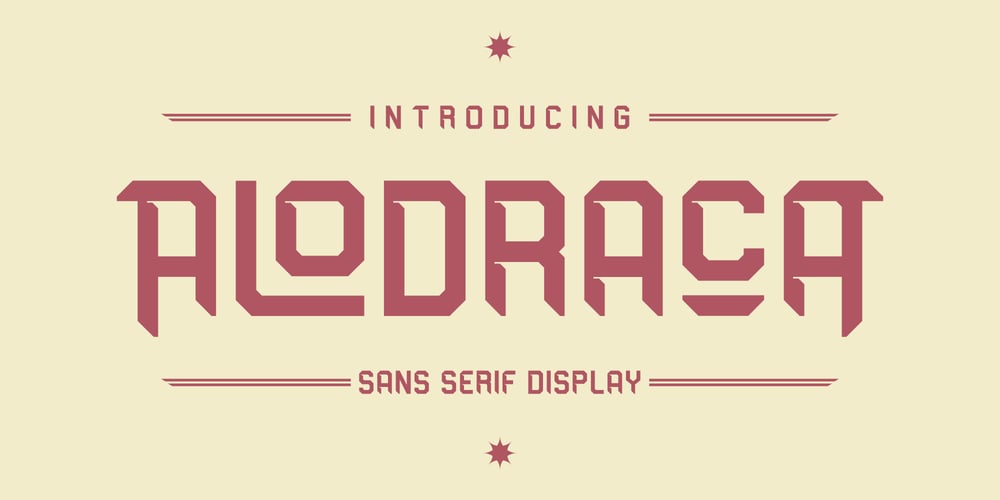
Alodraca
Alodraca font
Alodraca Font Family was designed by Heru Utama Putra and published by Letterena Studios. Alodraca contains 2 styles and family package options. A serif modern and classic typeface that has its own unique style & modern look.This typeface is perfect for an elegant & luxury logo, book or movie title design, fashion brand, magazine, clothes, lettering, quotes, and so much more.